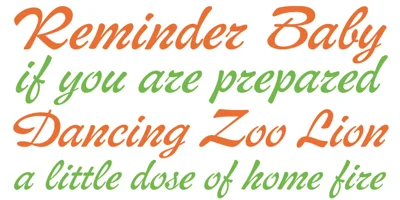
Middleton Brush Font
Middleton Brush Font is perfect for hand-lettered logos, artisan café branding, creative poster designs, craft beer labels, vintage signage projects, artistic greeting cards, handmade product packaging, creative agency identity, and expressive social media graphics. This dynamic typeface brings authentic brush-painted character and artistic flair to both digital and print design applications.
Middleton Brush Font is exciting because it captures the spontaneous energy and organic texture of traditional brush lettering, making it an exceptional choice for designers who want to create authentic, handcrafted designs that feel personal and approachable. Its natural brush strokes and varied letter weights provide the perfect balance between artistic expression and professional functionality, ensuring your projects convey creativity and human touch.
The Middleton Brush Font family includes multiple stylistic variations, alternate characters, and ligatures that enhance creative flexibility. Each glyph maintains consistent brush-painted aesthetics while offering designers numerous options for customization, allowing for unique letter combinations and personalized typography treatments that reflect individual artistic vision and brand personality.
Whether you're developing brand identities for creative businesses, artistic projects, or lifestyle brands, Middleton Brush Font delivers authentic handcrafted appeal that resonates with audiences seeking genuine artistic expression. This premium typeface offers designers the perfect tool for creating designs that communicate creativity, authenticity, and personal craftsmanship effectively. The font's expressive character makes it ideal for headlines, logos, and display applications where artistic personality is essential. Download Middleton Brush Font today and bring genuine hand-lettered sophistication to your creative projects.